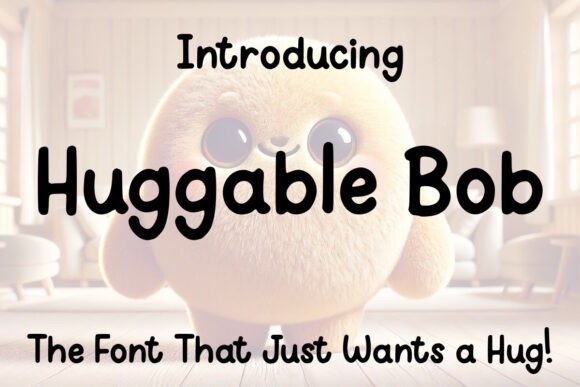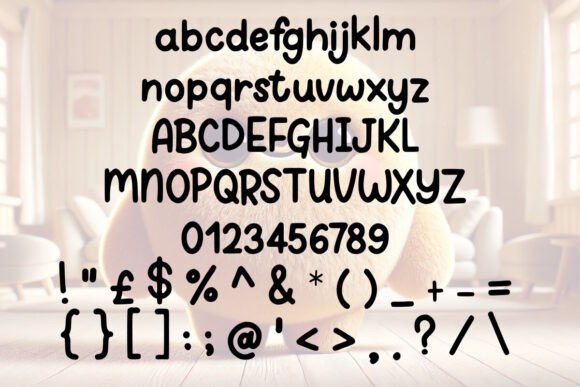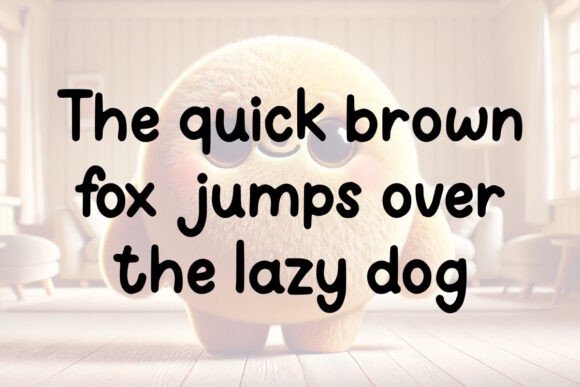
Huggable Bob Font: A Cute & Cozy Font for Crafting & Cricut!
About the Huggable Bob Font
We are excited to introduce Huggable Bob Font, a must-have typeface for any serious designer. Huggable Bob is as soft and squishy as a warm embrace! With rounded, friendly letters that feel like they’re made for comfort, this font is perfect for anything that needs a little extra warmth and charm. Whether you’re crafting something for kids, a heartfelt card, or a cozy brand, Huggable Bob is here to wrap your words in a big, friendly squeeze!
Huggable Bob’s rounded forms excel in headlines, short-form content, and branding applications where approachability is key. It works wonderfully for children’s products, invitations, and logos needing a friendly, inviting feel. However, its low x-height makes it less suitable for body text or extended reading. Avoid using it for UI elements or situations demanding high legibility at small sizes.
Pairing Huggable Bob with a clean sans-serif like Open Sans for body text creates a balanced contrast. For a more playful aesthetic, consider pairing it with a quirky script font such as Pacifico. A geometric sans-serif, such as Montserrat, provides a modern counterpoint, enhancing Huggable Bob’s inherent warmth without overwhelming it.
The overall personality of Huggable Bob is undeniably friendly and approachable, conveying a sense of warmth and comfort. Its soft curves and inviting forms make it ideal for brands focusing on childhood, family, or comfort-related products and services.